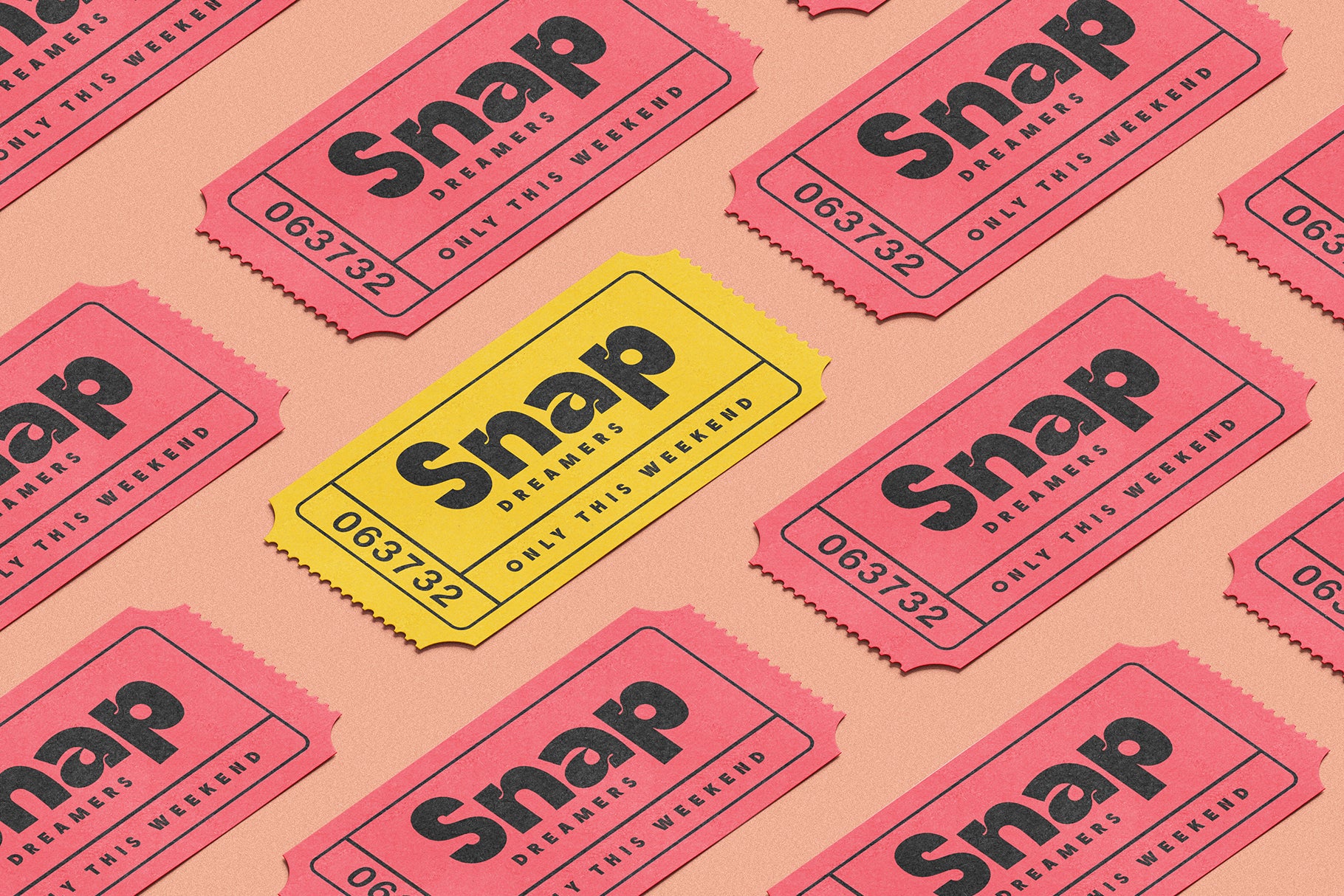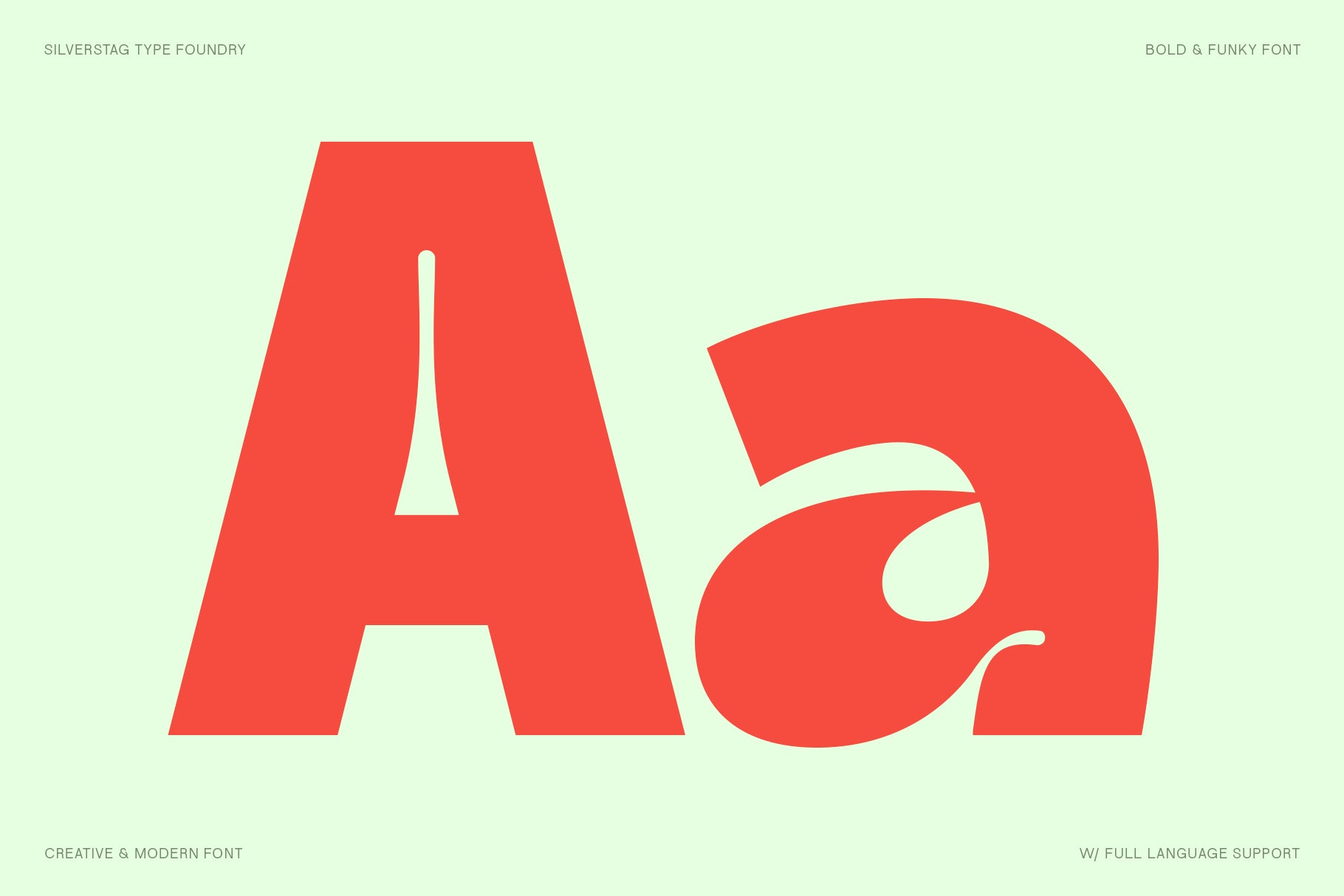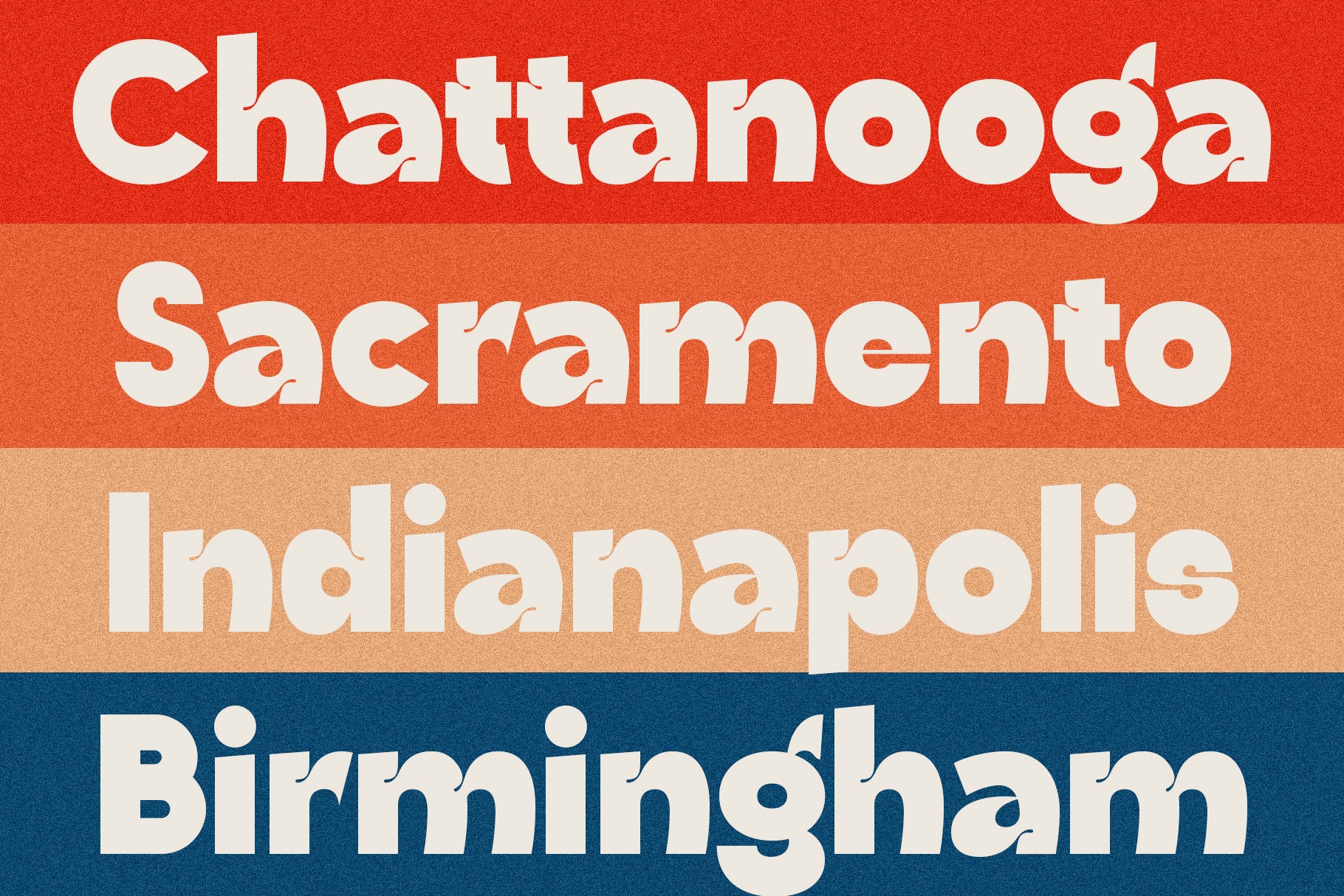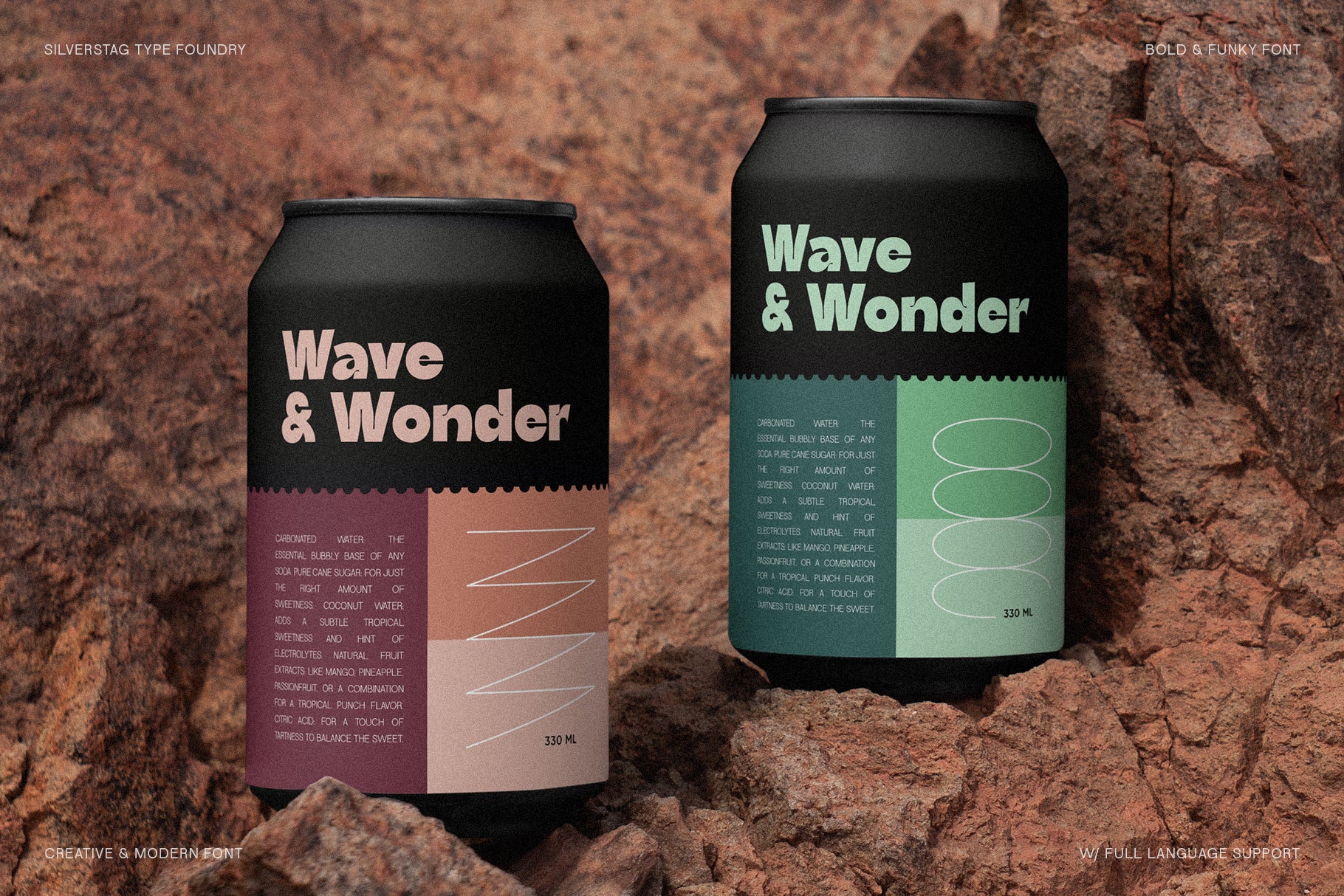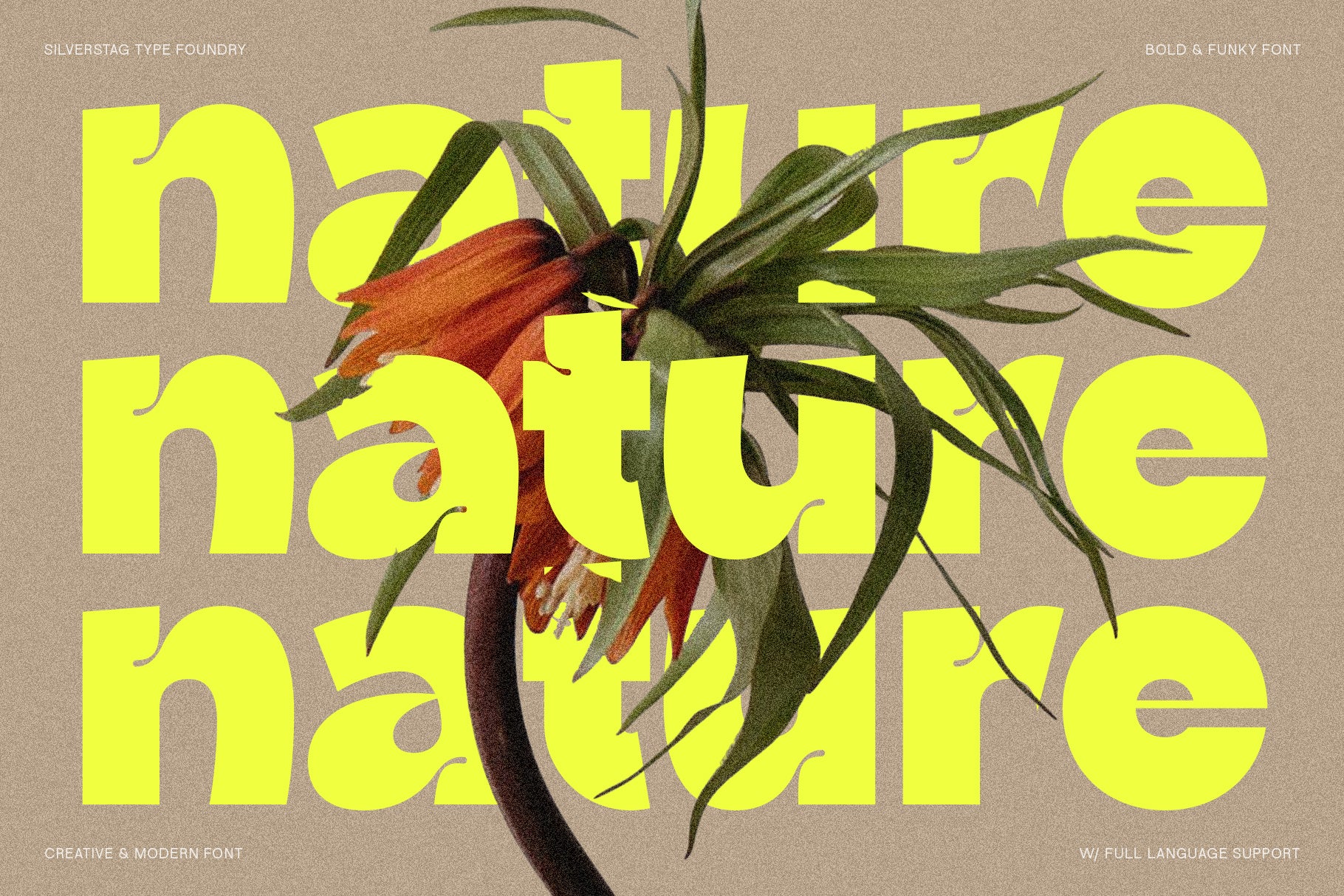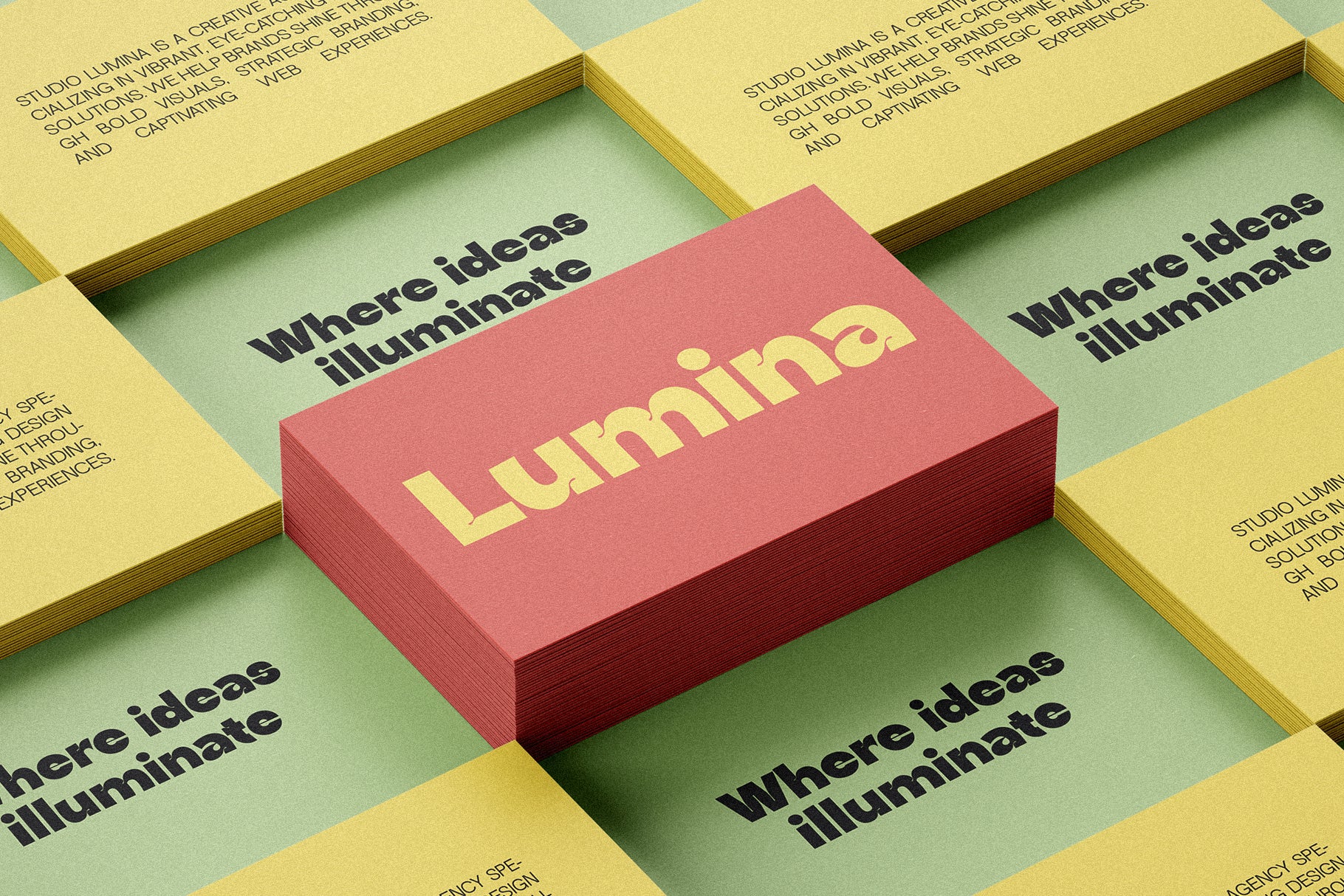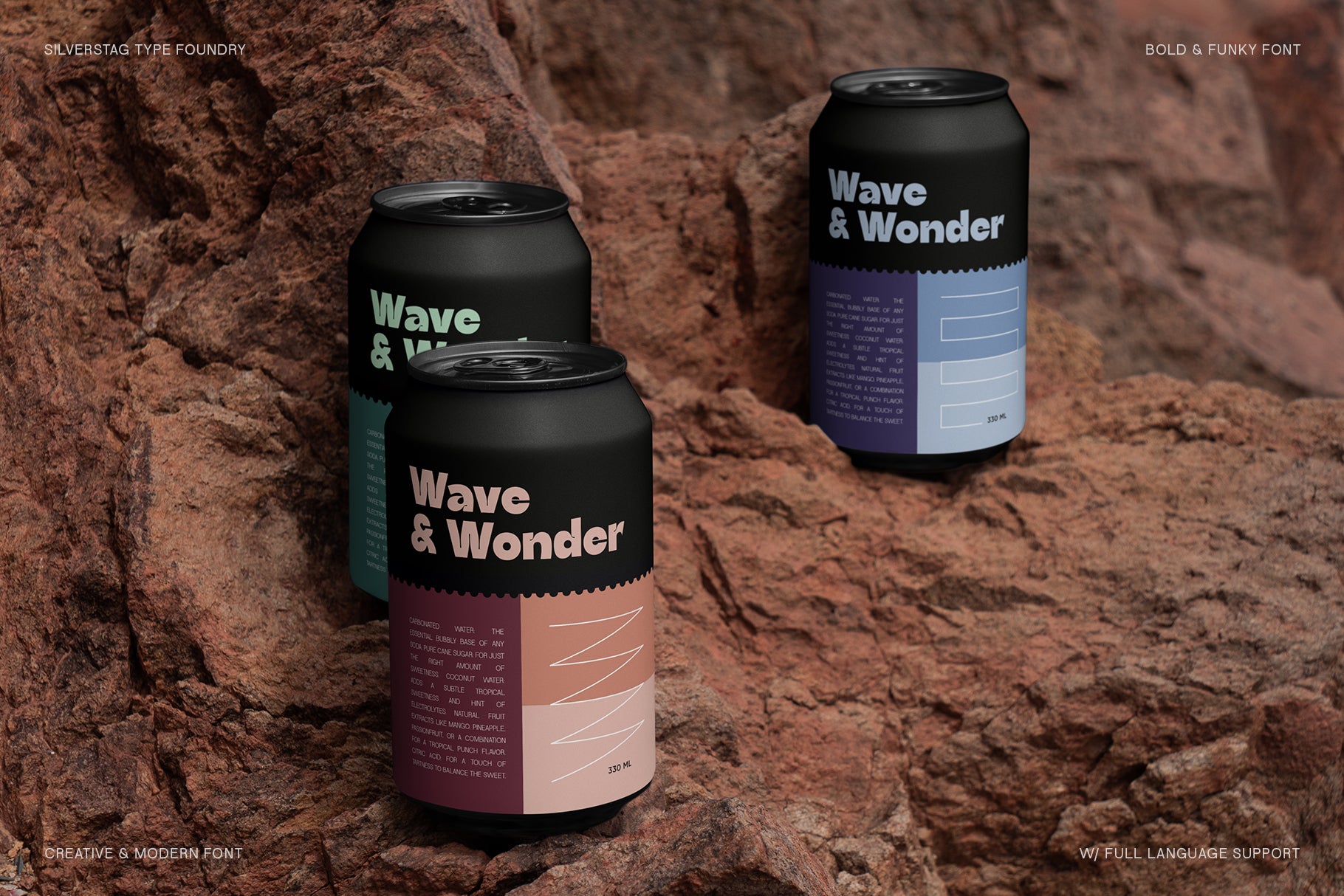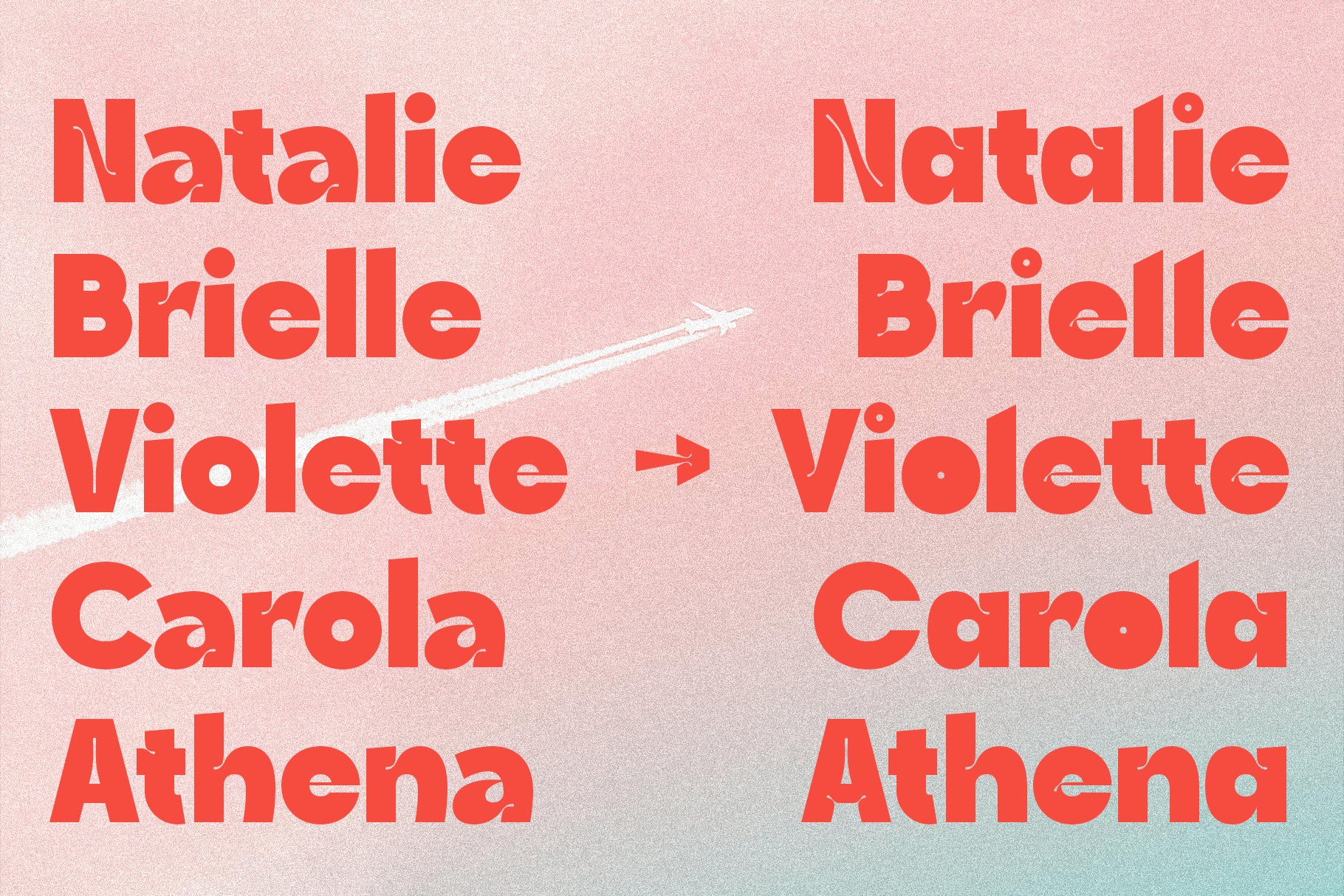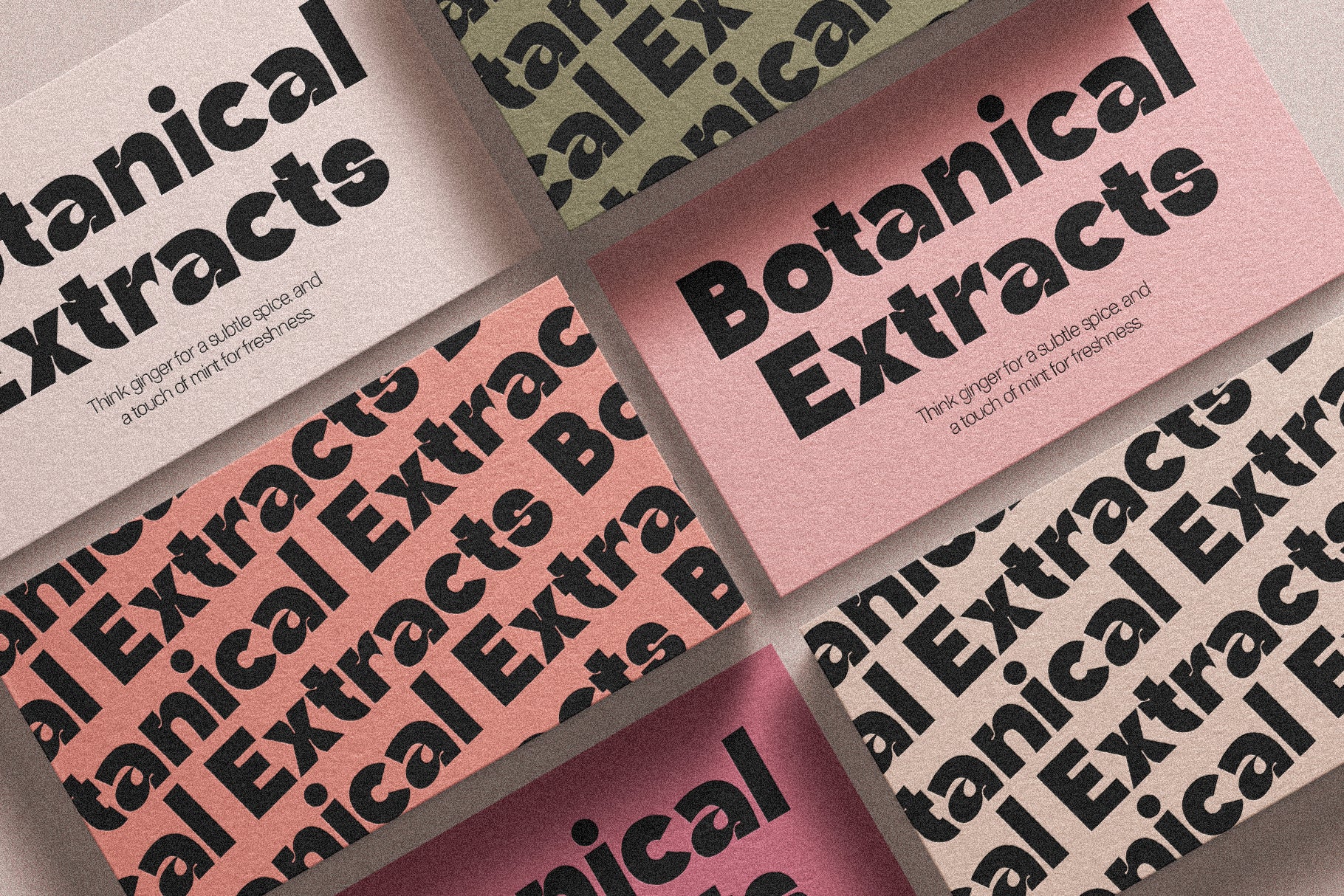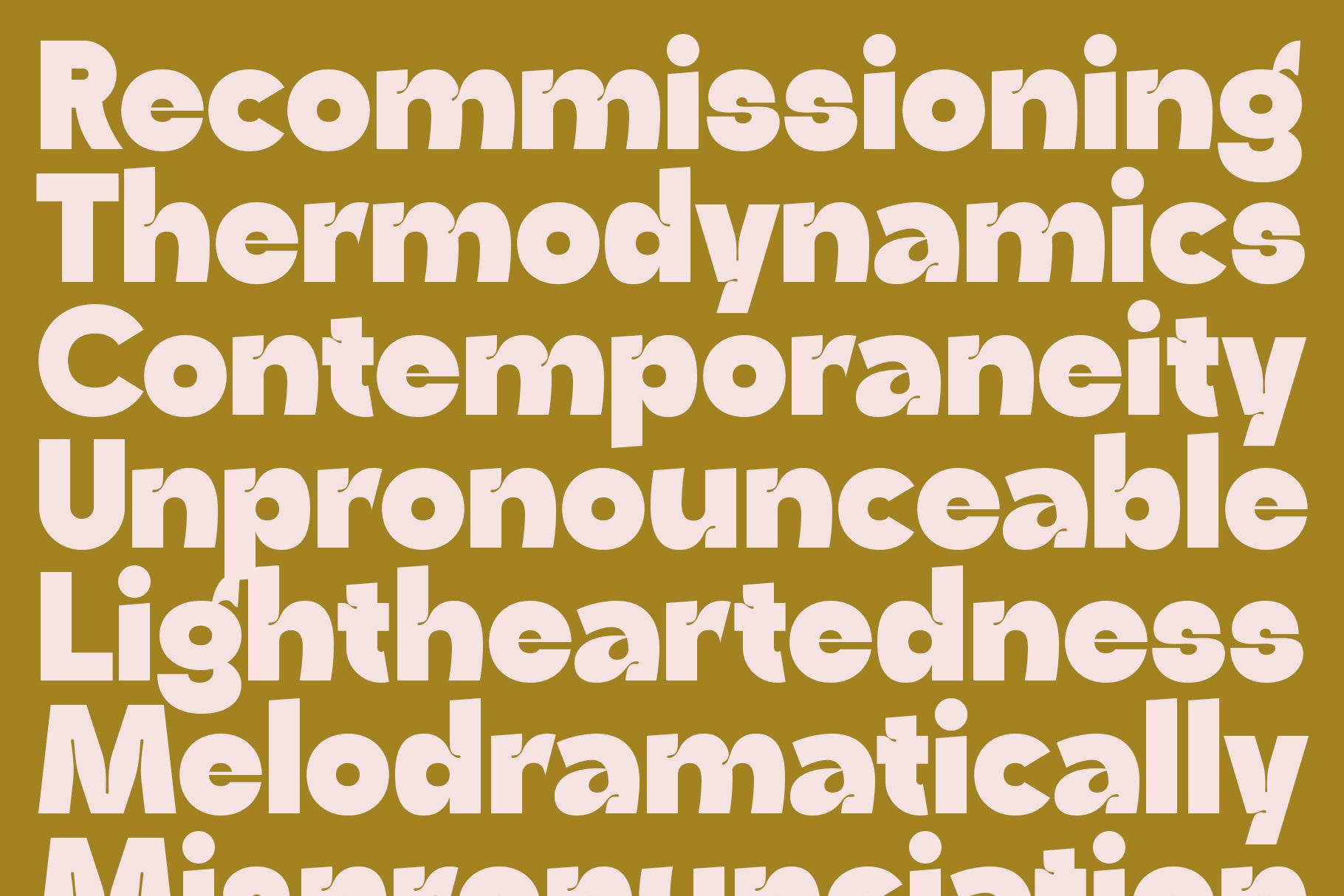
Ingrafts - Bold & Funky Font
Ingrafts is a chunky sans serif font full of personality, designed to make your work pop with playful confidence. Featuring bold strokes, quirky ink traps, and over 50 alternate characters, Ingrafts lets you create expressive, custom typography that stands out from the crowd.
This bold display font is ideal for...
Ingrafts is a chunky sans serif font full of personality, designed to make your work pop with playful confidence. Featuring bold strokes, quirky ink traps, and over 50 alternate characters, Ingrafts lets you create expressive, custom typography that stands out from the crowd.
This bold display font is ideal for statement design — think edgy headlines, bold logos, stylish social media graphics, eye-catching posters, and trend-driven packaging. With subtle curves and unexpected detailing, Ingrafts brings a fun, modern twist to traditional bold fonts.
Whether you’re channeling a retro vibe or creating something fresh and fashion-forward, Ingrafts delivers high energy, bold character, and endless creative potential. And with support for 90+ languages, it’s ready to make an impact across cultures and platforms.
Pink and yellow raffle tickets reading "Snap, Dreamers, only this weekend" set in Ingrafts — ticket mockup.
US city names — Chattanooga, Sacramento, Indianapolis, Birmingham — set in cream Ingrafts on red, coral and blue bands — type specimen.
"nature" repeated in yellow Ingrafts over a photo of an orange fritillary flower — type-as-texture.
Black "Wave & Wonder" cans set in Ingrafts, grouped on rocks — packaging mockup.
Pink and cream business cards reading "Botanical Extracts" set in Ingrafts, tiled — branding mockup.
Pink beverage cans reading "Earth & Grain Brewery" set in Ingrafts, with strawberry graphics — packaging mockup.
"Madrid" repeated in black Ingrafts over a photo of the Metropolis building in Madrid — type-as-texture.
Five-letter words — Stitch, Lucre, Perch, Ankle, Ferns and more — set in red Ingrafts on mint — type specimen.
Pink and cream business cards reading "Botanical Extracts" set in Ingrafts, tiled — branding mockup.
Long words — Intermissions, Structuralism, Sanctification, Draughtsman, Precognitions — set in pink Ingrafts on mint — type specimen.
Coffee bags reading "Driftwood Roasters" set in Ingrafts, arranged in a grid — packaging mockup.
Coffee bags reading "Driftwood Roasters, Colombia El Naranjo, Mexico Altura Decafe" set in Ingrafts, in green — packaging mockup.
A large "Aa" in red Ingrafts on mint — glyph specimen.
Black beverage cans reading "Wave & Wonder" set in Ingrafts, on rocks — packaging mockup.
A checkerboard branding layout for "Lumina, where ideas illuminate" in yellow, green and coral, set in Ingrafts — branding mockup.
Names — Natalie, Brielle, Violette, Carola, Athena — shown in default and alternate forms in red Ingrafts on pink — type specimen.
Long words — Recommissioning, Thermodynamics, Contemporaneity, Unpronounceable, Lightheartedness — set in cream Ingrafts on olive — type specimen.
"Designers don't make mistakes!" set in red Ingrafts on pink, over an arch and dandelion — type specimen.
Yellow and pink raffle tickets reading "Snap, Dreamers, only this weekend" set in Ingrafts — ticket mockup.
A large "Aan" in cream Ingrafts over a teal background with a billy-button flower — glyph specimen.
"Dakota" set in yellow Ingrafts over a close-up photo of a cactus — type-as-texture display.
"The inside* look, made naturally and crafted with pure love" in cream and lime Ingrafts above a large black "after" on dark green — type specimen.
Italian city names — Rome, Turin, Palermo, Bologna, Florence, Catania, Venice, Messina, Padua — set in cream Ingrafts over a pink wall with a shuttered window — type-as-texture.
Coffee bags reading "Driftwood Roasters, Colombia El Naranjo, Mexico Altura Decafe" set in Ingrafts, in green — packaging mockup.
Pink and yellow raffle tickets reading "Snap, Dreamers, only this weekend" set in Ingrafts — ticket mockup.
A large "Aa" in red Ingrafts on mint — glyph specimen.
US city names — Chattanooga, Sacramento, Indianapolis, Birmingham — set in cream Ingrafts on red, coral and blue bands — type specimen.
Black beverage cans reading "Wave & Wonder" set in Ingrafts, on rocks — packaging mockup.
"nature" repeated in yellow Ingrafts over a photo of an orange fritillary flower — type-as-texture.
A checkerboard branding layout for "Lumina, where ideas illuminate" in yellow, green and coral, set in Ingrafts — branding mockup.
Black "Wave & Wonder" cans set in Ingrafts, grouped on rocks — packaging mockup.
Names — Natalie, Brielle, Violette, Carola, Athena — shown in default and alternate forms in red Ingrafts on pink — type specimen.
Pink and cream business cards reading "Botanical Extracts" set in Ingrafts, tiled — branding mockup.
Long words — Recommissioning, Thermodynamics, Contemporaneity, Unpronounceable, Lightheartedness — set in cream Ingrafts on olive — type specimen.